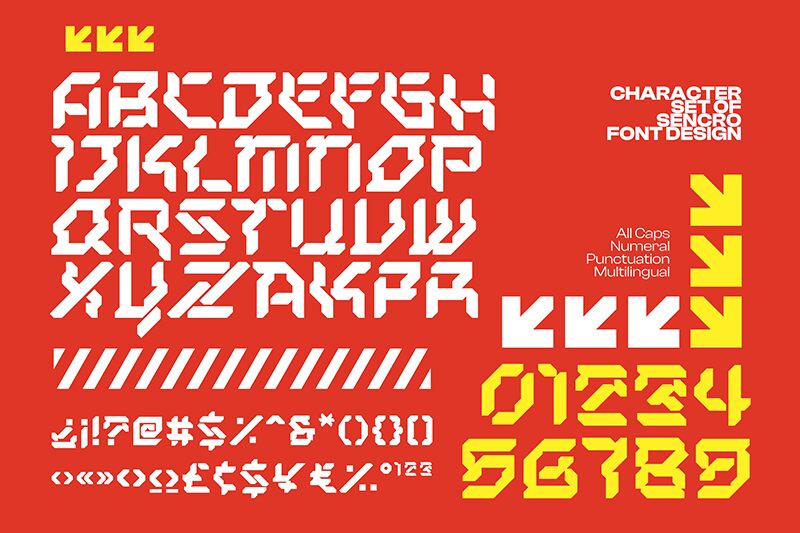
Sencro
Sencro font by Holisfonts.com is an expanded display typeface with a futuristic flair. It boasts a geometric, tech-inspired design characterized by sharp angles and a modern aesthetic. This angular font’s stroke widths vary significantly to form eye-catching characters.
Sencro’s free futuristic packages make it ideal for company logos, tech blogs, science magazines, video games graphics, apps design, and movie posters. The font can also adorn book covers of science fiction novels.